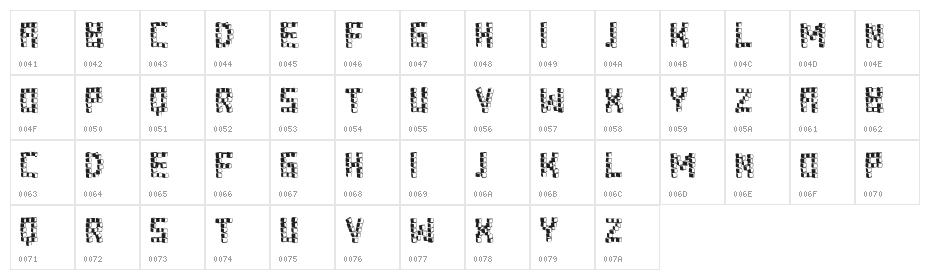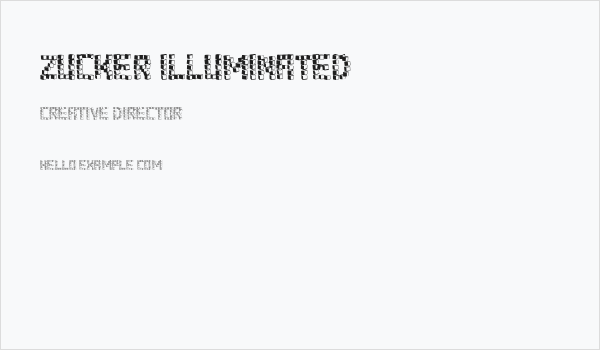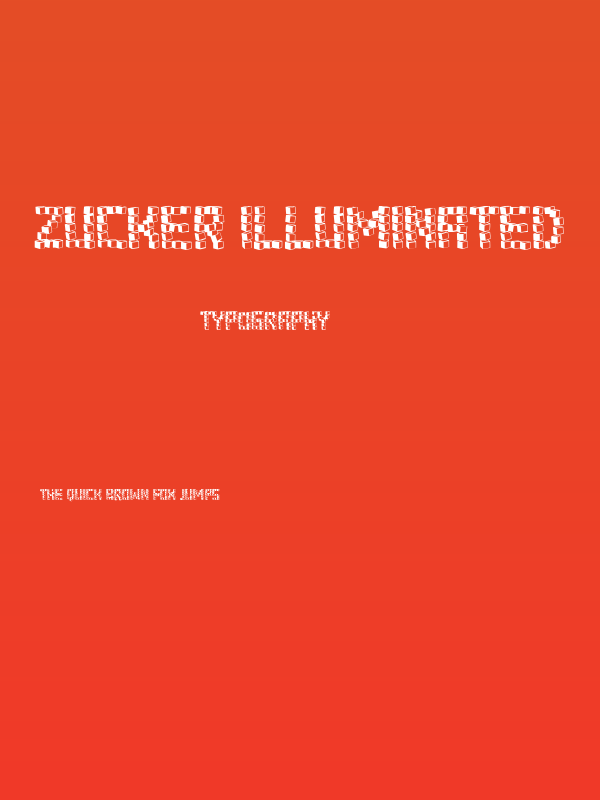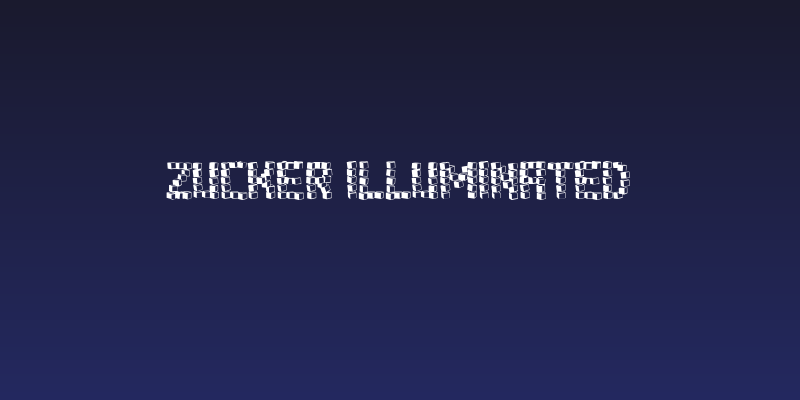
Zucker Illuminated Font
Zucker Illuminated Description
This font features a unique, three-dimensional block design that gives each letter a cube-like appearance. The characters are constructed with a series of connected cubes, creating a striking visual effect that is both playful and bold. The design is consistent across uppercase letters, providing a cohesive look. The font's geometric style and high contrast between the black and white elements make it stand out, ideal for attention-grabbing headlines or creative projects. The spacing between characters is normal, allowing for readability while maintaining its decorative appeal.
Proposed ProjectsIdeal for creative projects such as posters, logos, and headlines where a bold, eye-catching font is needed.